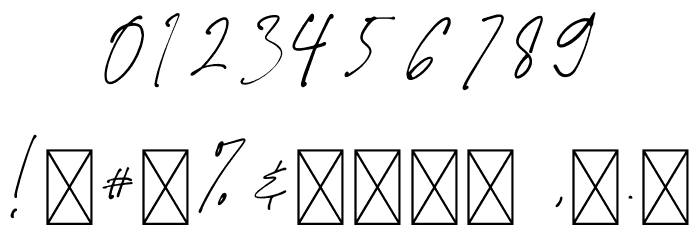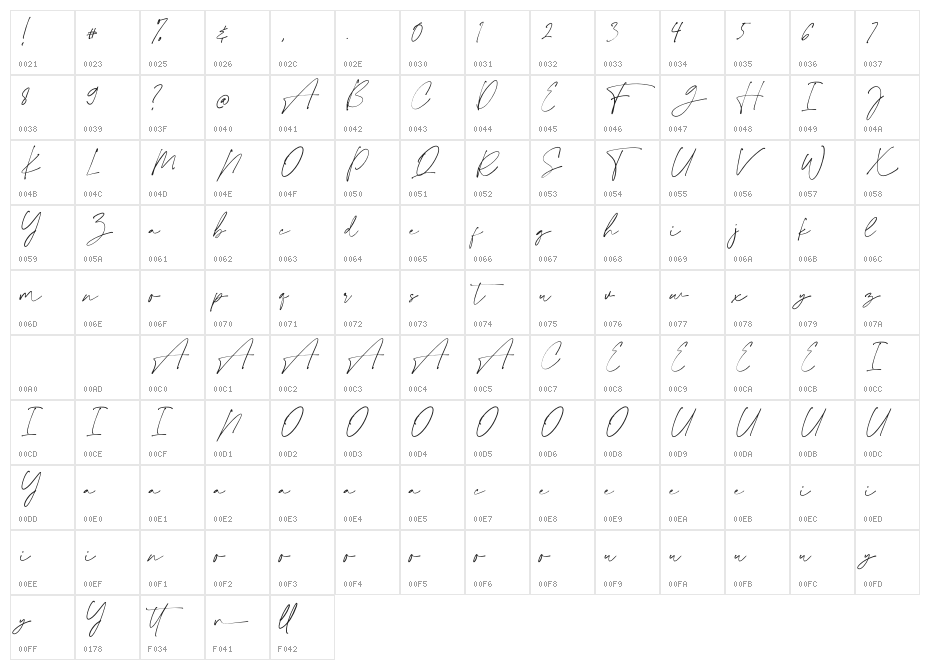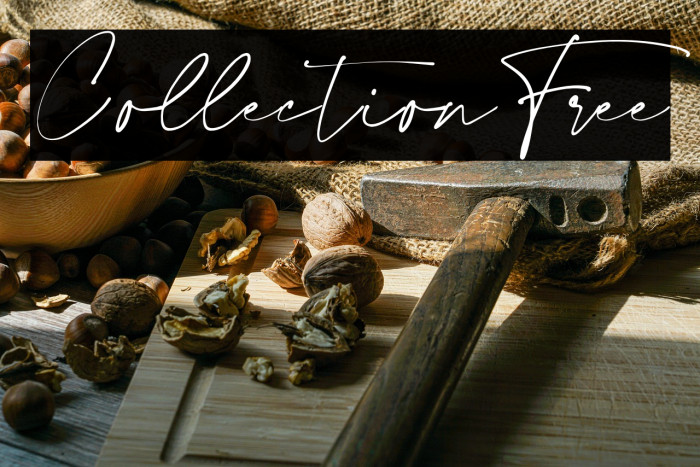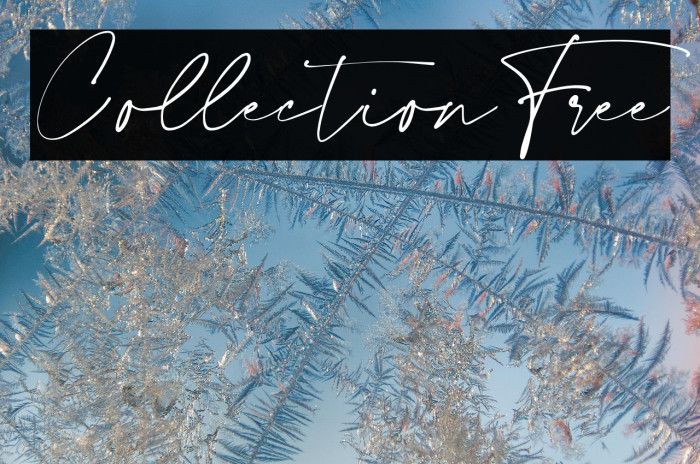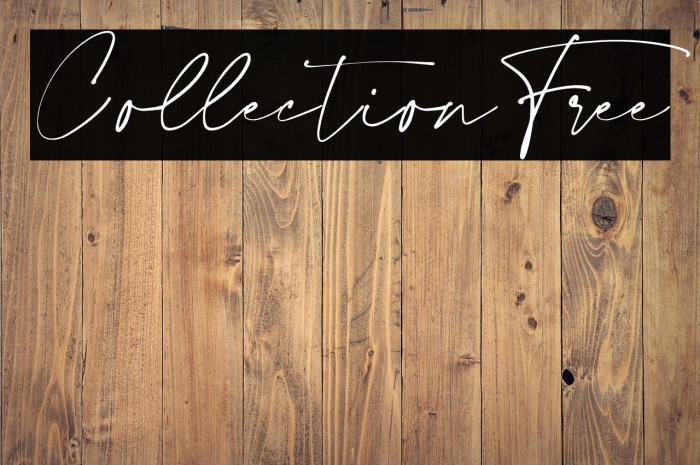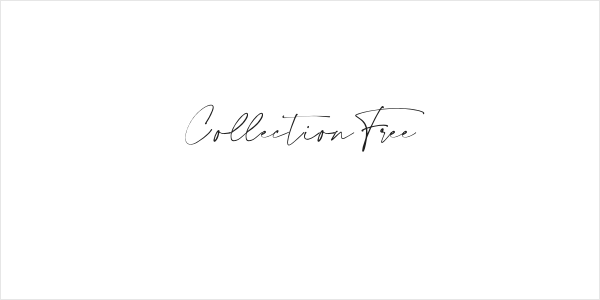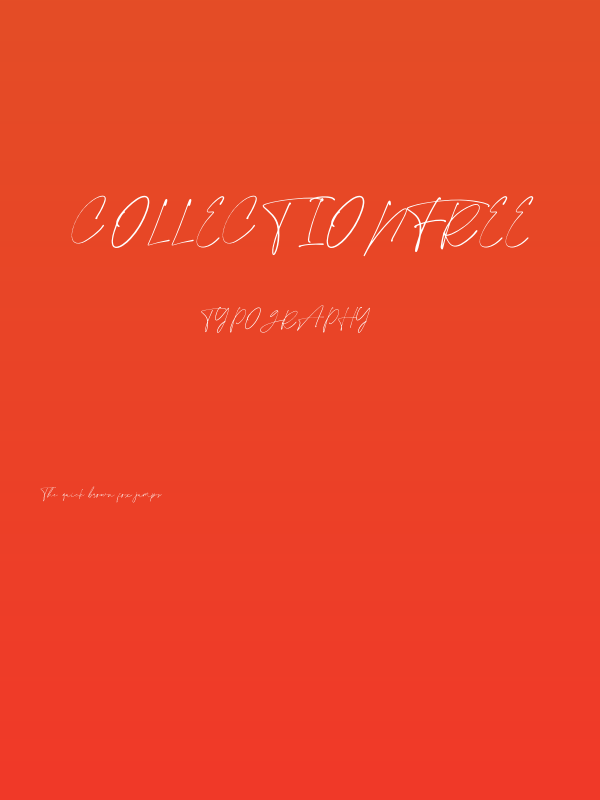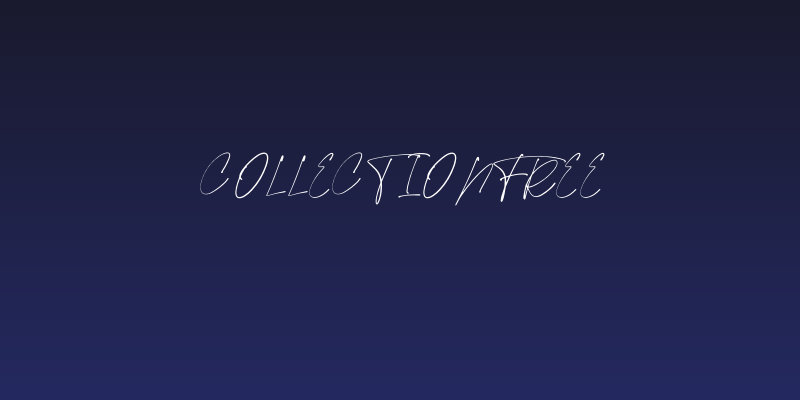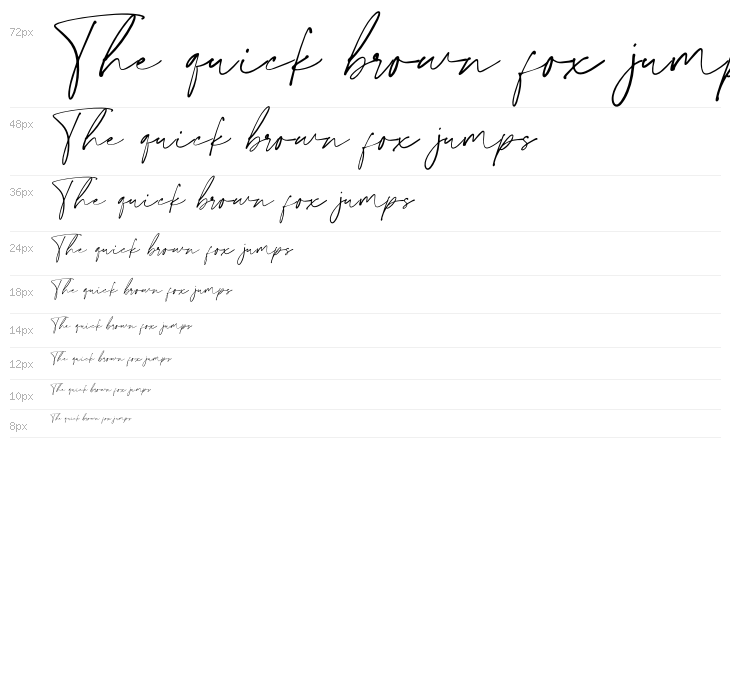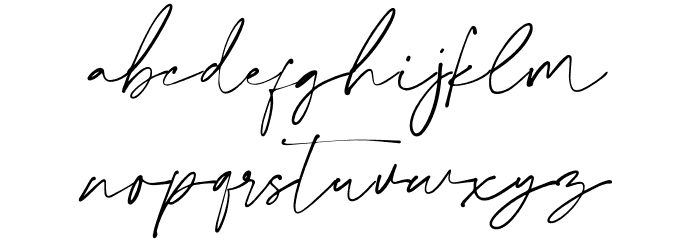
CollectionFree Font
CollectionFree Description
This font features an elegant, flowing script style that mimics natural handwriting. The uppercase letters are tall and slightly slanted, with a graceful, cursive flair. Lowercase letters maintain a consistent flow, connecting smoothly in a way that enhances readability while retaining a personal touch. The numerals are distinct yet harmonize well with the overall script style, maintaining the same fluidity and elegance. Special characters are thoughtfully designed to complement the alphabet, ensuring a cohesive look across all text. This font exudes a sense of sophistication and charm, making it ideal for projects that require a personal or artistic touch.
| Overall Style | Elegant, Artistic |
| Proposed Projects | Ideal for wedding invitations, greeting cards, personal branding, and artistic projects. |